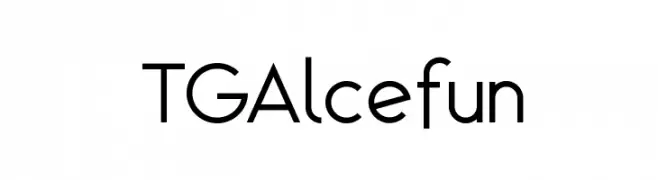
A bold, modern serif font with classic influences and strong character presence.
A bold, oblique serif font with a modern-antique blend.
A modern oblique font with classic elegance and moderate stroke contrast.
A clean, modern sans-serif font with geometric precision and excellent readability.
A bold, modern sans-serif font with rounded edges and uniform stroke weight.
A bold, italic sans-serif font with smooth, rounded edges and a modern look.
A modern, italic sans-serif font with clean lines and excellent legibility.
A sophisticated cursive serif font with elegant, flowing characters.
A cursive-inspired sans-serif font with elegant, slanted characters.
A bold, cursive-inspired sans-serif font with a dynamic and elegant style.
A bold cursive serif font combining elegance with readability.
A modern, light, and condensed sans-serif font with clean lines and uniform stroke width.
A clean, modern sans-serif font with a light weight and excellent legibility.
A sleek, modern, light, and condensed italic font with tight spacing.
A modern, light, and italic font with smooth strokes and balanced proportions.
A stylish cursive font with elegant, flowing strokes and seamless character connections.
An elegant, flowing script font with graceful loops and swashes.
A modern, clean sans-serif font with uniform strokes and rounded edges.
An ornate script font with elegant swirls and flourishes, perfect for formal and luxurious designs.
An elegant script font with intricate swirls and flourishes, perfect for romantic and sophisticated designs.
A calligraphic, oblique font with elegant curves and a dynamic style.
A bold, decorative font with Celtic-inspired design and intricate curves.
A decorative font with a blend of traditional and modern elements, featuring flowing curves and sharp angles.
A bold, oblique font with Celtic-inspired curves and sharp serifs.
A clean, monospaced font with a minimalist and modern design.
A thin, monospaced font with a minimalist and modern design.
A clean, modern sans-serif font with uniform stroke width and balanced spacing.
A clean, rounded sans-serif font with a friendly and modern appearance.
A clean, friendly handwritten font with smooth curves and consistent stroke width.